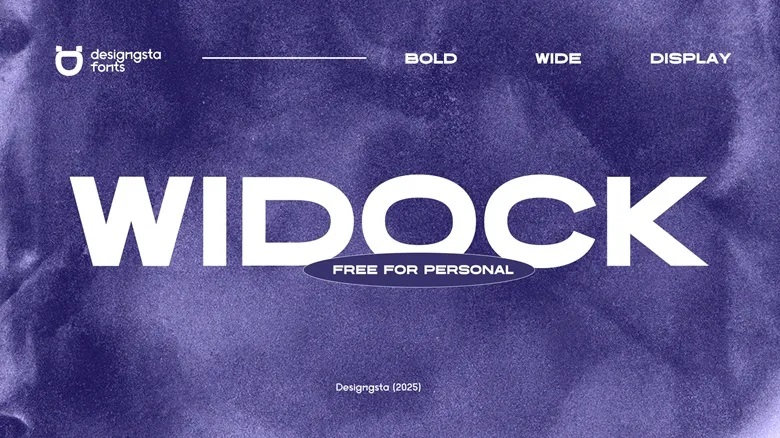
Widock Font
Widock establishes itself as an audacious font from the sans serif family. The designer responsible for Widock is Ilya Designgsta who crafted this font. The utility of this font extends beyond all topics so it will become a valuable addition to your collection of fonts.
Widock Sans Serif Font